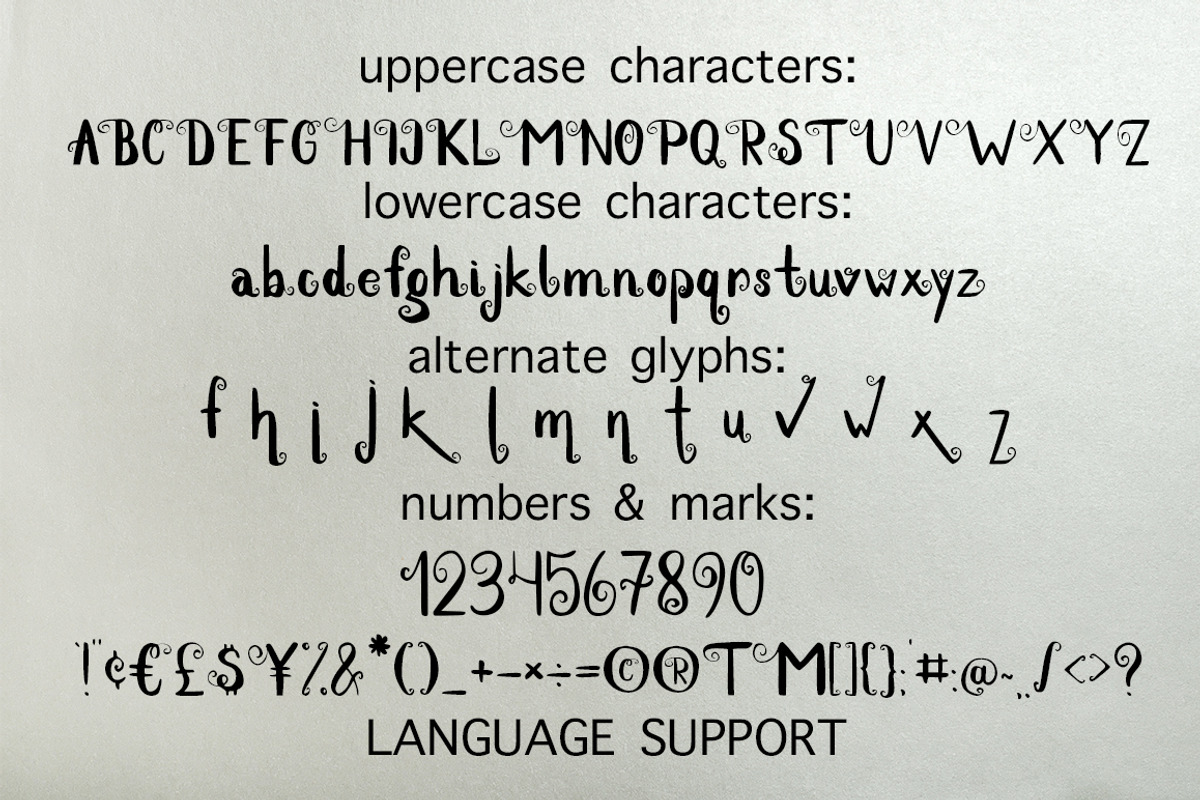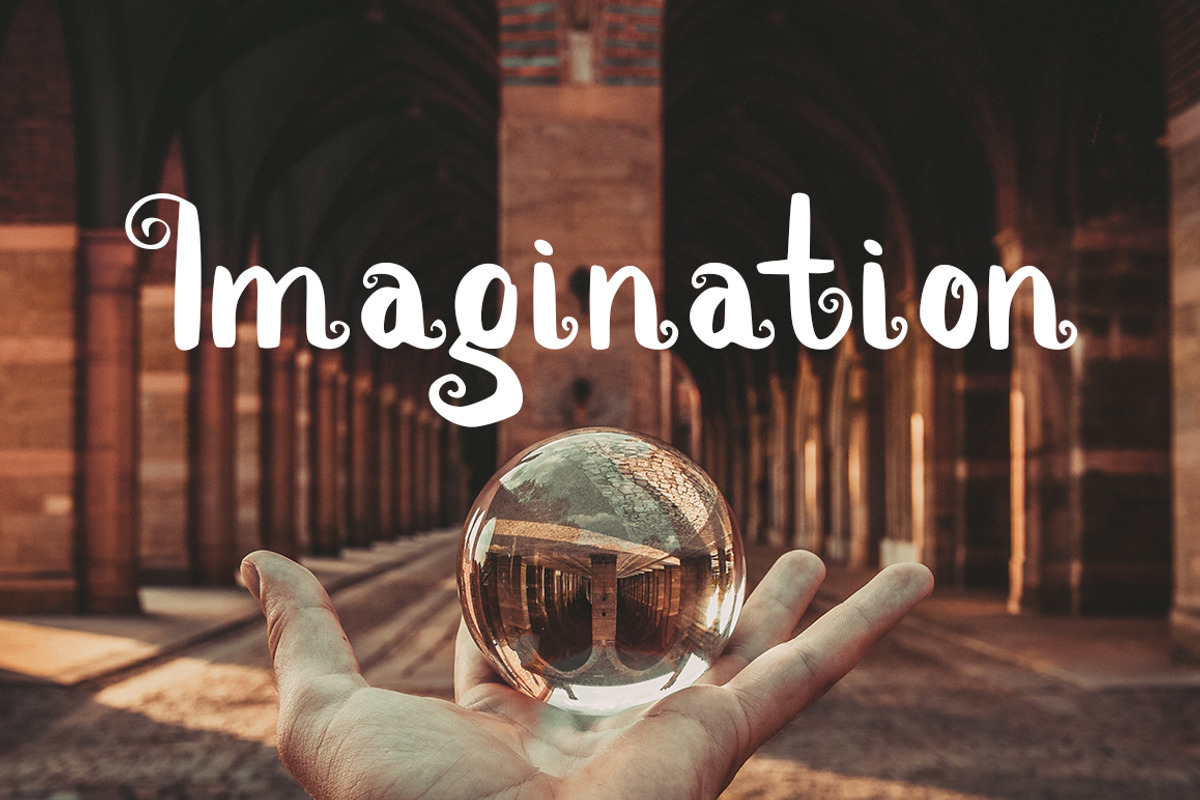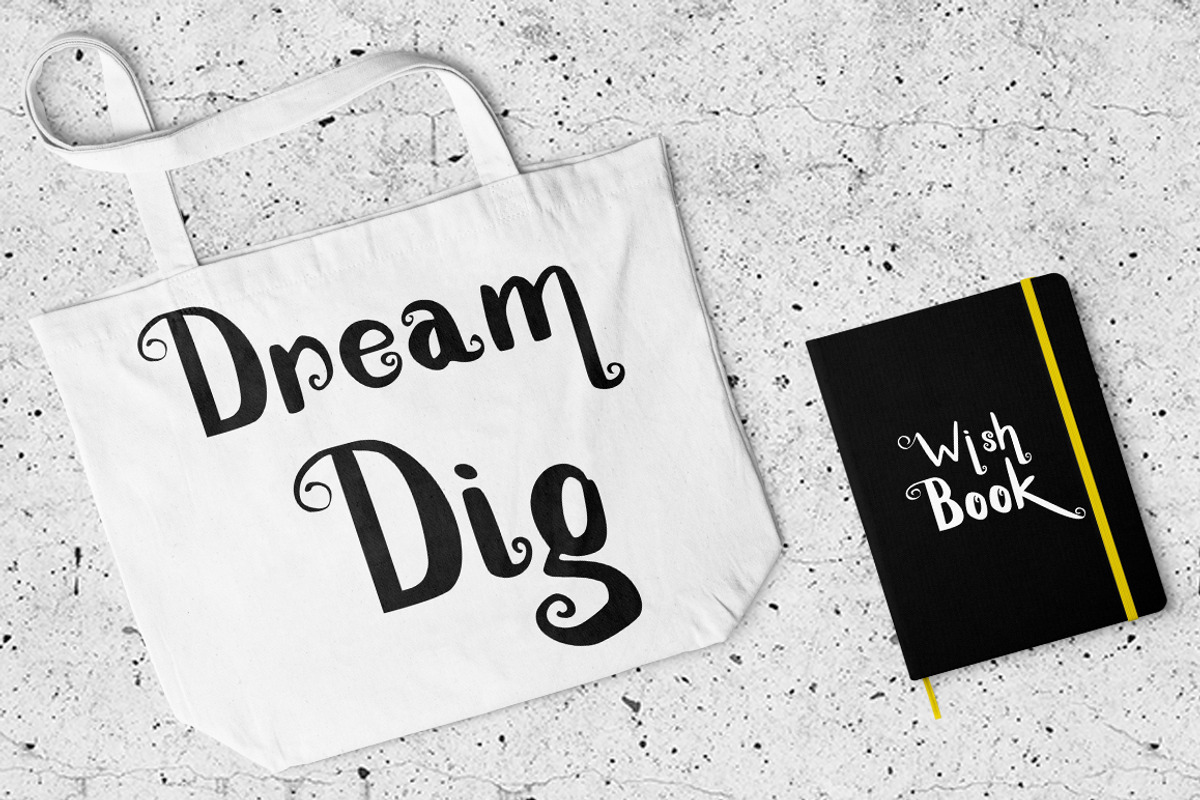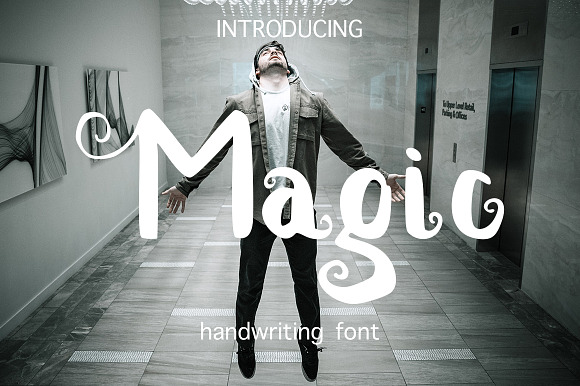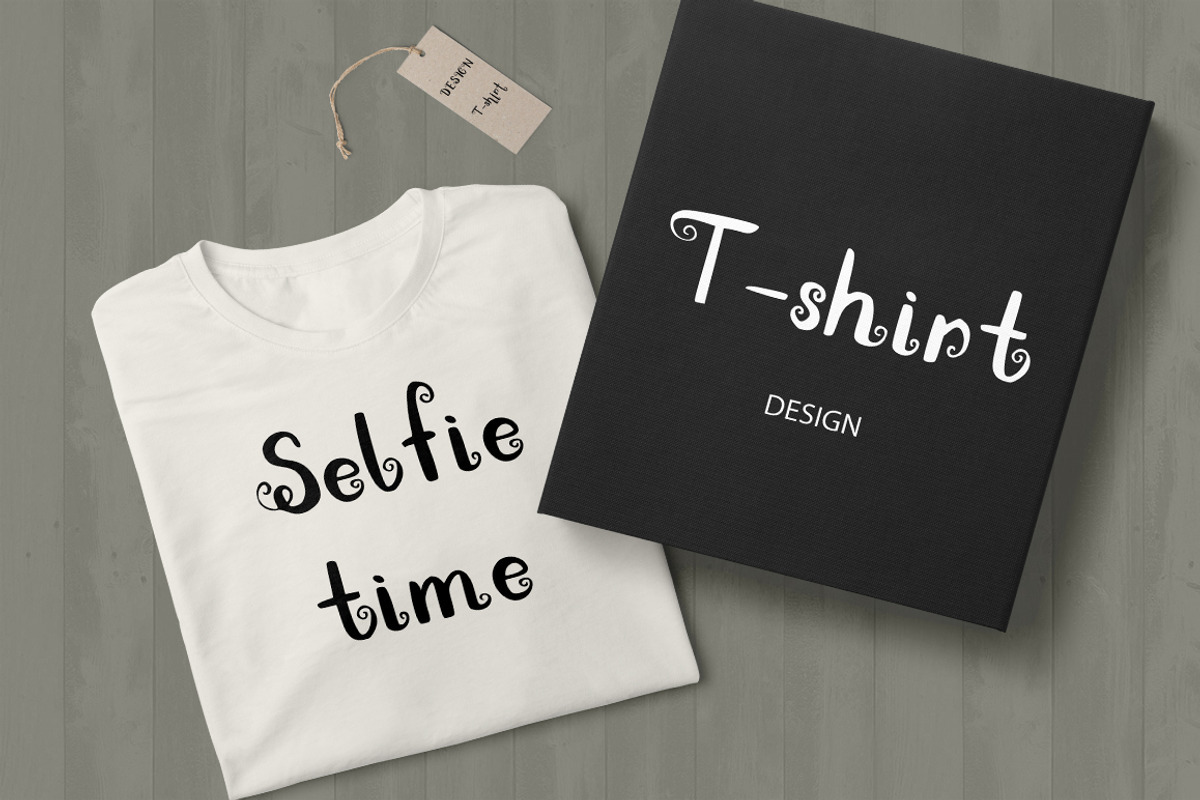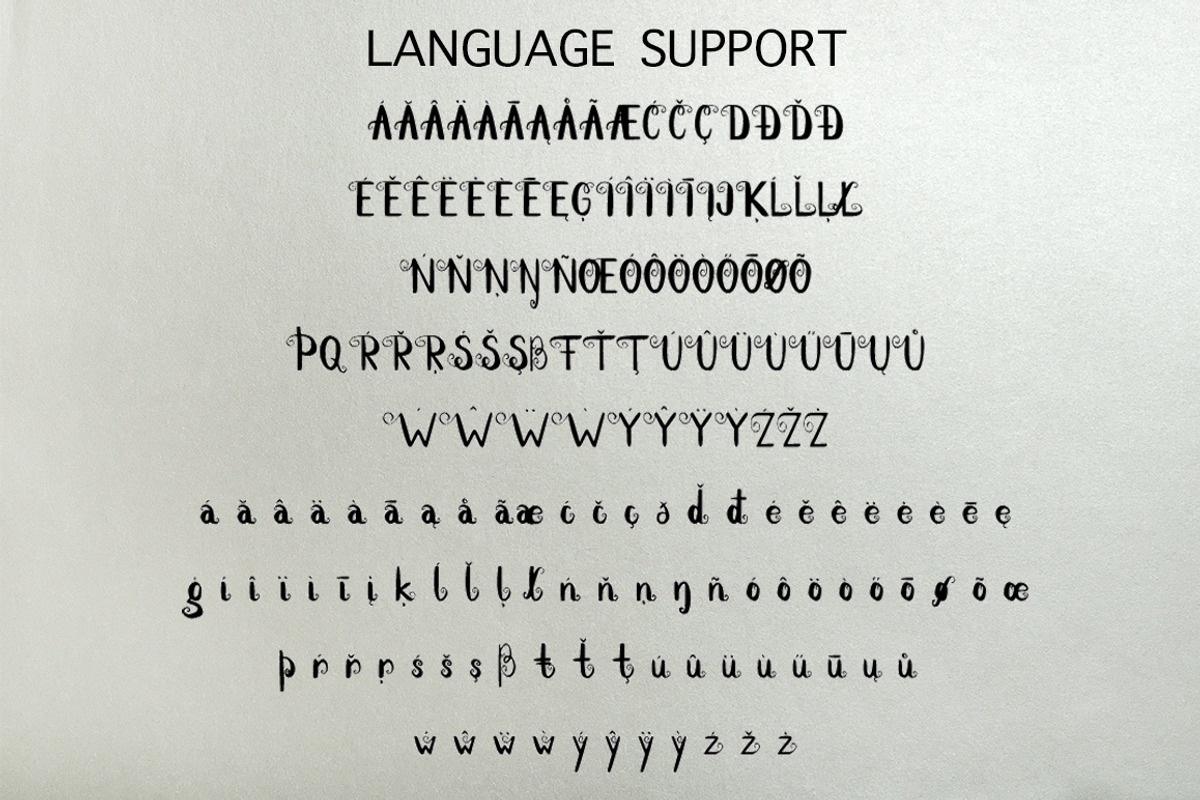
Magic handwritten font
Magic handwritten brush font
Magic is a well-rounded hand drawn script font created with round brush and ink.
Magic has extensive language support - besides most of European languages
Why Magic handwritten font is worth a look
Magic handwritten font by Gennadi Digital Studio fits naturally into Branding, posters, packaging, typography.